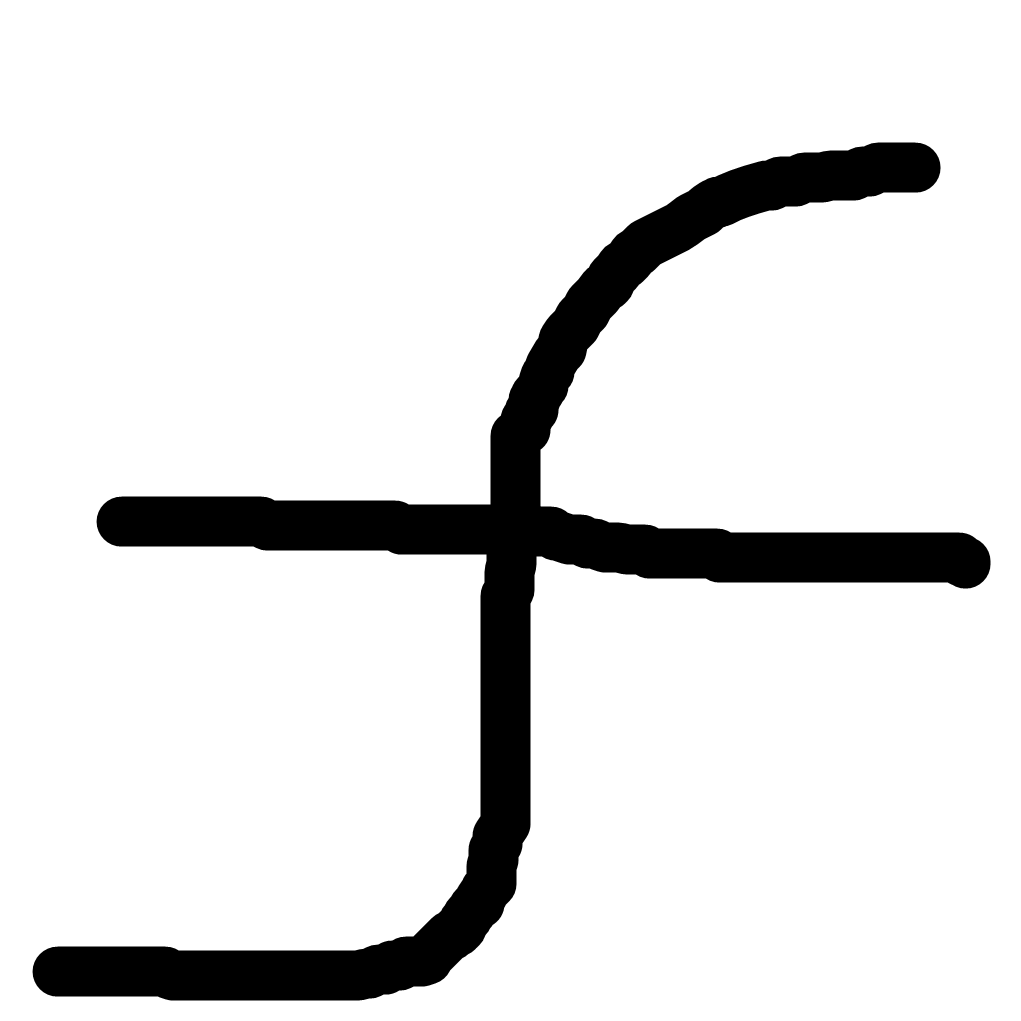
if you are german, don't look at F
The F is like... You know..
worst part is that it didnt have to be that way!!! @vishvesh could've done the F like in this image!!!
not only that the [f] breaks the theme of the font of being horizontally symmetric!!!